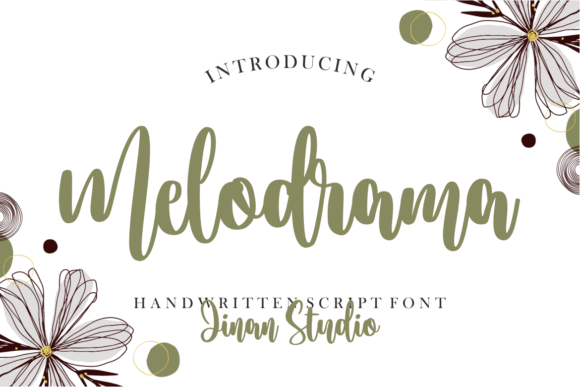
Melodrama Font
Indulge in the captivating script of the Melodrama Font, a testament to the allure of love and the art of handwritten expression. Its elegant curves and captivating style will effortlessly elevate your designs, breathing life into your creations with a touch of romance and allure.
Crafted with precision, the Melodrama Font is a versatile masterpiece, perfectly suited for a myriad of applications that demand a touch of sophistication. From the heartfelt sentiments of greeting cards to the bold statements of headlines, this font has the power to transform your words into captivating works of art.
Imagine your Instagram username, adorned with the graceful strokes of the Melodrama Font, inviting followers into a world of poetic beauty. Its charming individuality will set your profile apart, attracting attention with a touch of elegance and intrigue.
Whether you're a seasoned designer seeking to elevate your creations or a budding enthusiast exploring the realm of typography, the Melodrama Font is the perfect addition to your digital toolbox. Its versatility knows no bounds, empowering you to craft stunning logos, captivating social media posts, and unforgettable branding that will leave a lasting impression.
Immerse yourself in the enchanting world of Melodrama Font, where the art of handwritten elegance meets the limitless possibilities of digital design. Embrace its romantic charm and watch as your creations blossom into masterpieces that evoke emotion and inspire wonder.